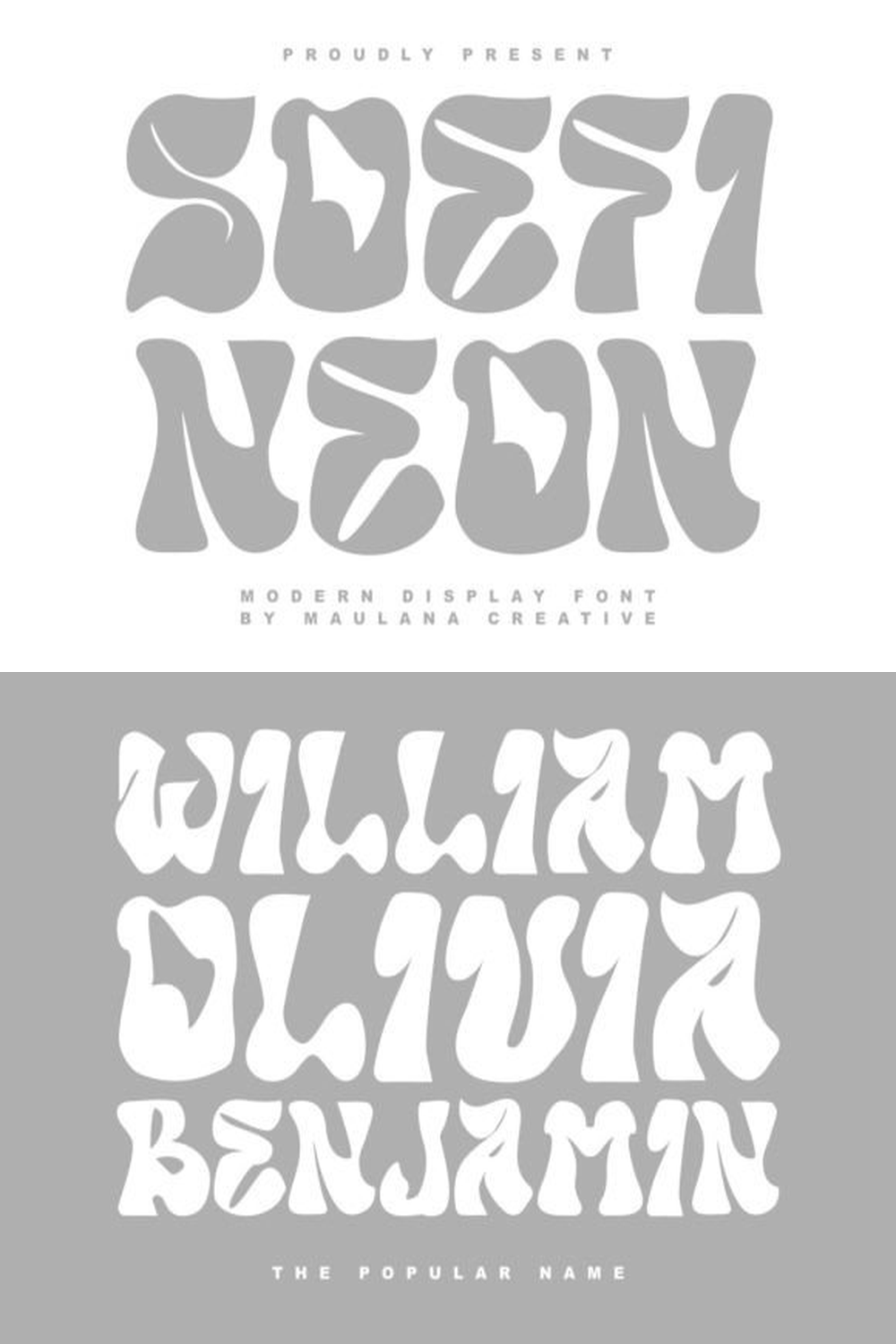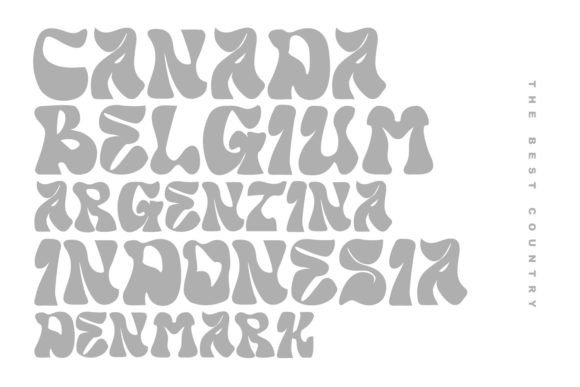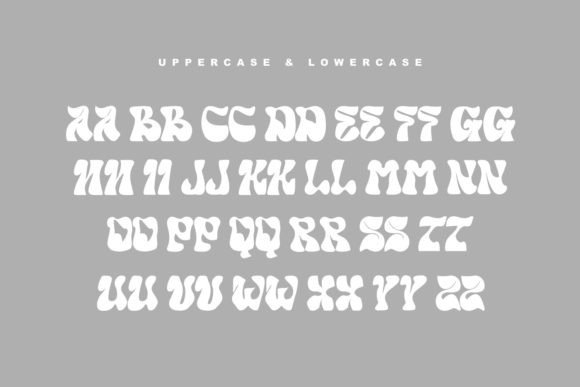
Soefi Neon Font: A Playful Display Font for Cute Designs!
About the Soefi Neon Font
Elevate your designs with Soefi Neon Font, a font that combines sophistication with readability. Soefi Neon is an incredibly quirky and sweet display font. Whether you use it for cartoon related designs, children games or just any creation that requires a lovely touch, this font will be an amazing choice.